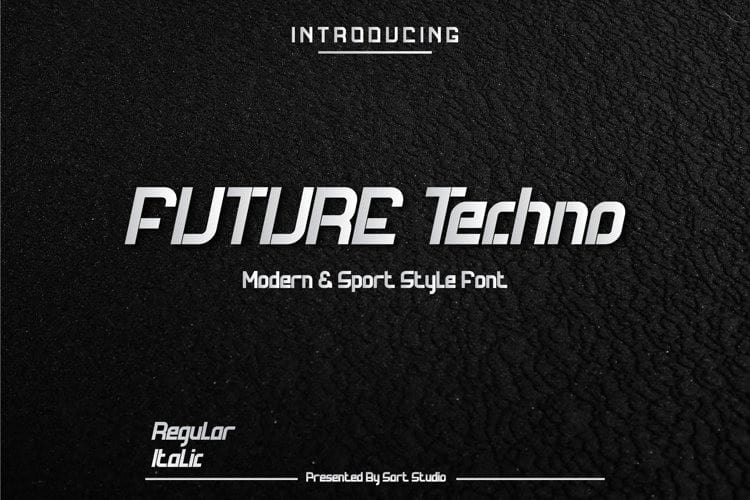
Future Techno Display Font
Future Techno Font is a modern and clean Display typeface. All characters have an imperfect shape that gives a natural look in design. It is a versatile font designed for strong, classic branding.